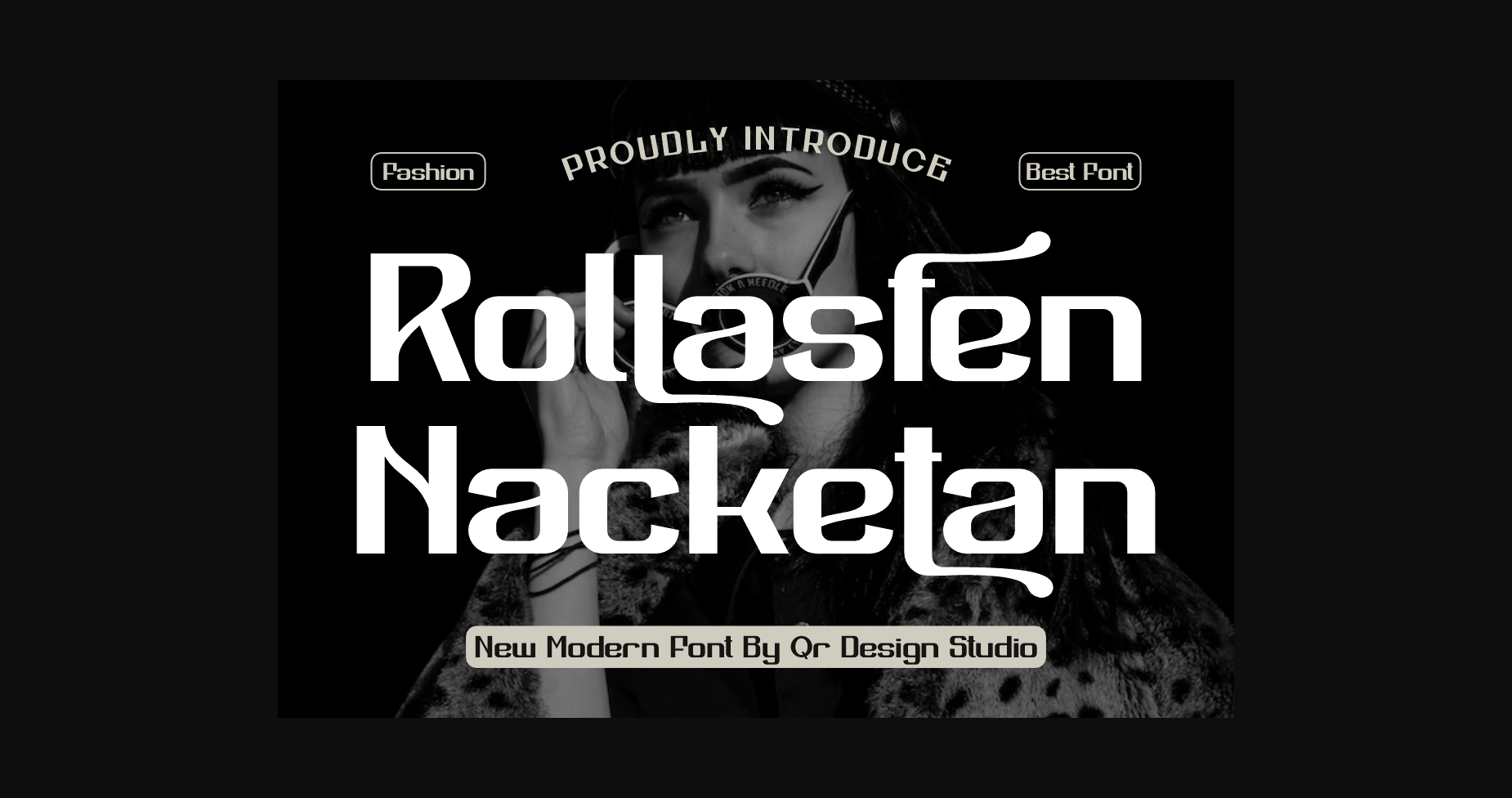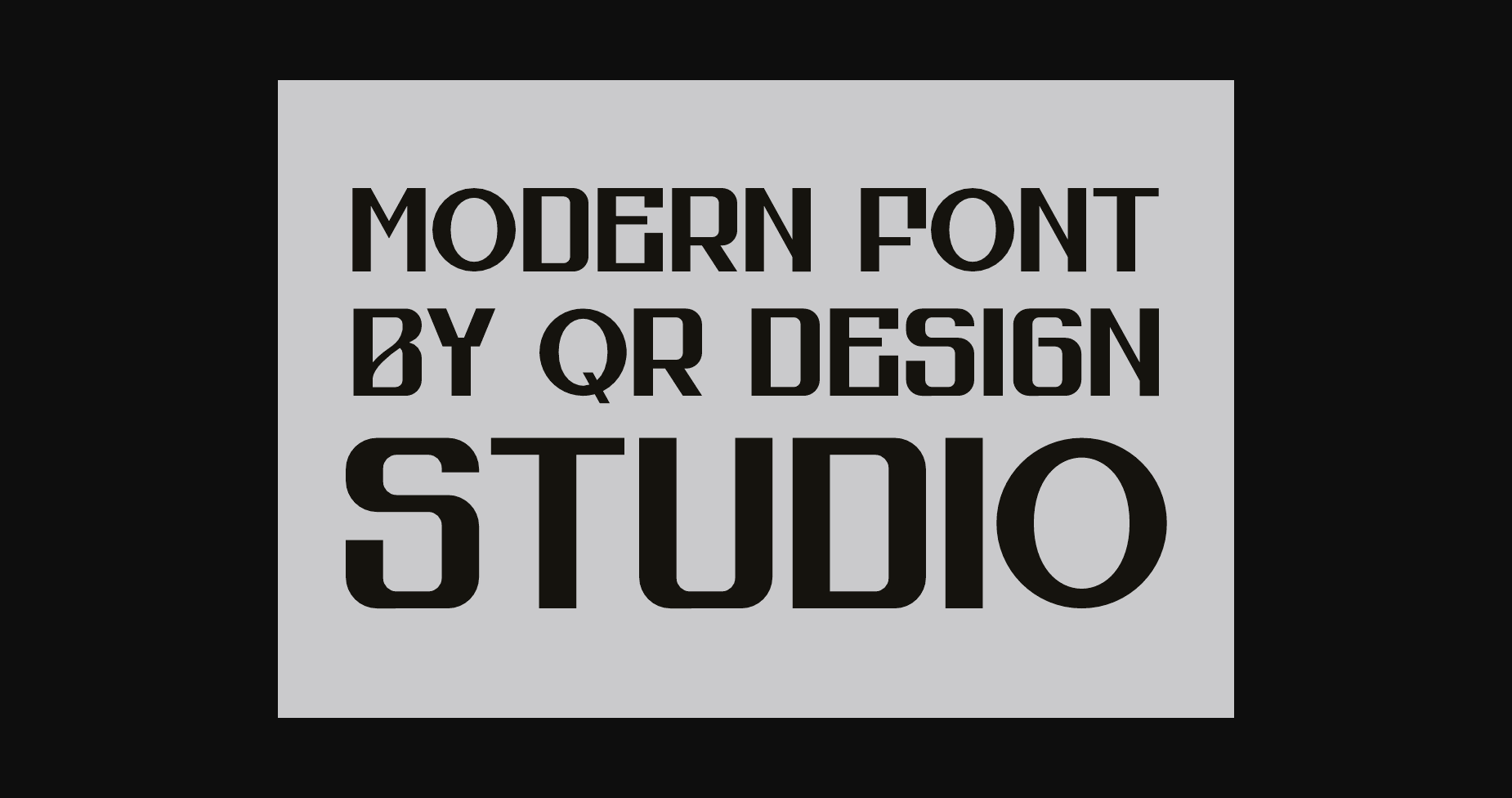
About Rollasfen Nacketan Font
Rollasfen Nacketan Font is a bold and authentic display font.
The font is suitable for any branding project like logos, weddings, fashion, sales, greeting cards, and many more.